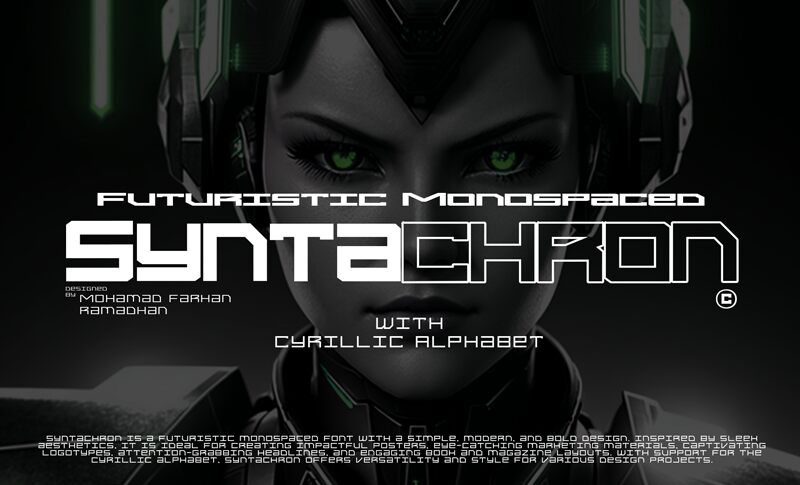
Syntachron Expanded font, crafted by Mofr24, embodies a striking blend of futuristic simplicity and bold elegance. Its visually captivating expanded design offers a sense of spaciousness, enhancing readability while radiating contemporary flair. The monospaced structure adds an intriguing balance that elevates any text it portrays.
With its sleek Cyrillic alphabet, Syntachron serves as an exceptional choice for dynamic posters, impactful marketing materials, and eye-catching logos. Its versatility makes it ideal for engaging headlines and modern layouts in books and magazines. Whether you aim for a cutting-edge aesthetic or a streamlined modern look, Syntachron Expanded is perfectly suited to elevate diverse design projects with distinctive character and outstanding visual appeal.